The beauty of cursive script isn't limited to English. Many languages have their own unique and elegant forms of handwriting. But finding an online tool that can handle different alphabets and special characters can be a challenge. Does this generator work for Russian? What about Cyrillic? This article will explore our Cursive Generator's capabilities with global scripts, including its function as a Russian Cursive Generator and for other languages. Ready to see how your language looks in a new style? Test your text on our generator now!
Challenges of Generating Non-English Cursive
Creating a multi language font generator isn't as simple as just swapping out letters. Why is it so complex?
Handling Diacritical Marks (é, ñ, ü)
Many languages based on the Latin alphabet, like French, Spanish, and German, use diacritical marks—accents, tildes, and umlauts. A good font must include these special characters and render them correctly without disrupting the cursive flow.
Supporting Different Alphabets (e.g., Cyrillic)
Languages like Russian use a completely different set of characters, known as the Cyrillic alphabet. Any font styling tool must first be able to recognize and display this non-latin alphabet before applying any styles.
The Complexity of Authentic Cursive Rules
This is the biggest challenge. True Russian cursive (письменный шрифт), for example, has letterforms that look very different from their printed counterparts, with specific rules for connecting them. Generating this authentically requires a much more sophisticated system than simply slanting and connecting printed letters.
Using Our Generator for Latin-Based Languages
For languages that use the Latin alphabet, our tool performs very well. Can I generate Spanish or French cursive with special characters?
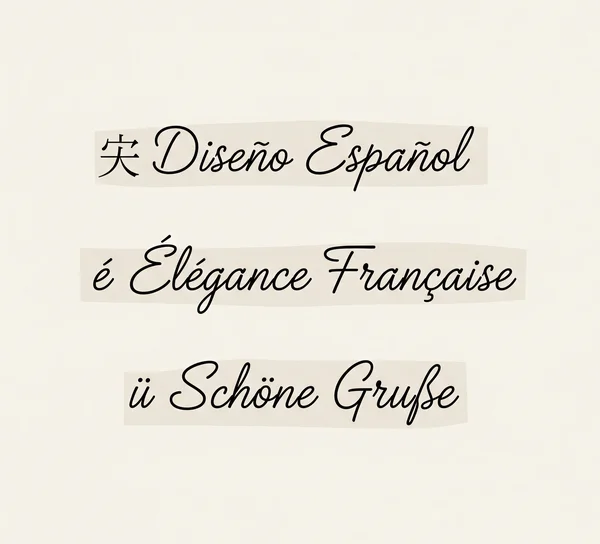
Spanish Cursive Font Styles
Yes! You can easily generate stylish cursive for Spanish text. Simply paste words containing characters like 'ñ', 'á', 'é', 'í', 'ó', and 'ú', and you'll find many fonts that handle them gracefully. It's a great spanish cursive font tool.
French Cursive Writing Examples
Our generator also works wonderfully for French. Characters like 'é', 'è', 'ç', 'â', and 'ô' are supported in many of our cursive styles, perfect for creating beautiful french cursive writing.
Styling German Text with Cursive Fonts
German speakers can also use our tool with confidence. The special characters 'ä', 'ö', 'ü', and the 'ß' (Eszett) are well-supported across a variety of our cursive font options.
The Russian Cursive Generator: What to Expect
This is a key question for many of our users. How well does our tool function as a Russian Cursive Generator?
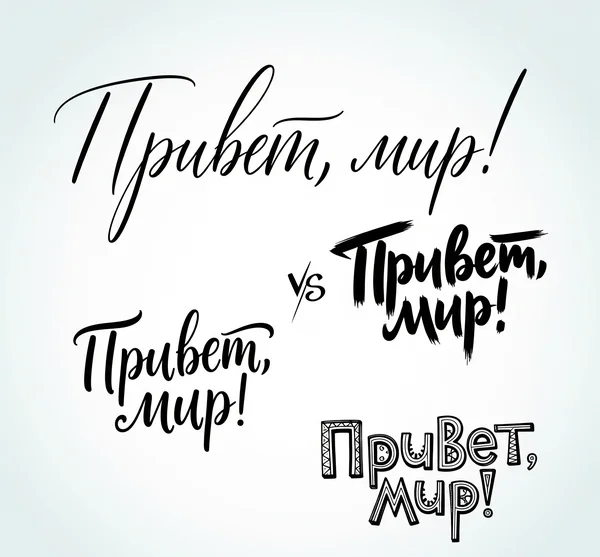
Styling Cyrillic Alphabet Text with Our Fonts
Our generator is an excellent Cyrillic Cursive Generator when it comes to styling. You can copy and paste any Cyrillic alphabet text (e.g., "Привет, мир!") into our tool, and it will apply our various script and handwriting styles to those characters. This is perfect if you want to give your Russian, Ukrainian, or other Cyrillic text a new aesthetic look for social media, graphics, or personal projects.
A Note on Authentic Russian Cursive Script
It is important to set the right expectation. As mentioned, authentic handwritten Russian cursive has very specific letter shapes and connections that are different from printed Cyrillic. Our tool primarily applies stylistic transformations to the printed characters you input. While it creates beautiful, script-like versions of Cyrillic text, it does not currently generate the 'textbook-perfect' Russian cursive taught in schools. What's the difference between a styled Cyrillic font and true Russian cursive? The former styles the printed letters, while the latter uses entirely different, handwritten letterforms.
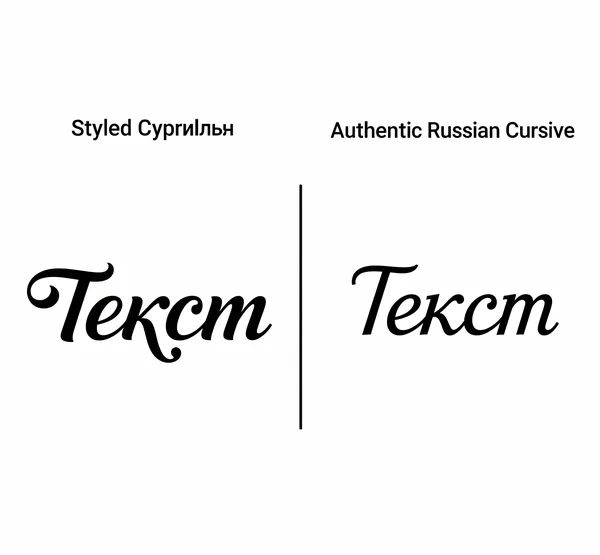
How to Test Any Language with Our Cursive Generator
The best way to see how our generator handles your language is to try it yourself! How to get cursive text in other languages?
Step 1: Copy Your Non-English Text
Find and copy a word or phrase in the language you want to test, ensuring it includes any special characters you need.
Step 2: Paste into the Generator
Go to our online font styler and paste the text directly into the input box.
Step 3: See the Styles in Action
The generator will immediately show you how your text looks in our library of cursive and script fonts. Scroll through to see which ones best support your language's characters and give you the look you want.
Explore Global Scripts & Shape Your Text's Identity
While perfect, language-specific cursive is a complex goal, our tool offers a fantastic way to explore styles for a huge range of global scripts. It's an excellent resource for styling Latin-based languages with diacritics and for giving Cyrillic text a unique and artistic flair.
Are there plans to add more language-specific cursive styles?